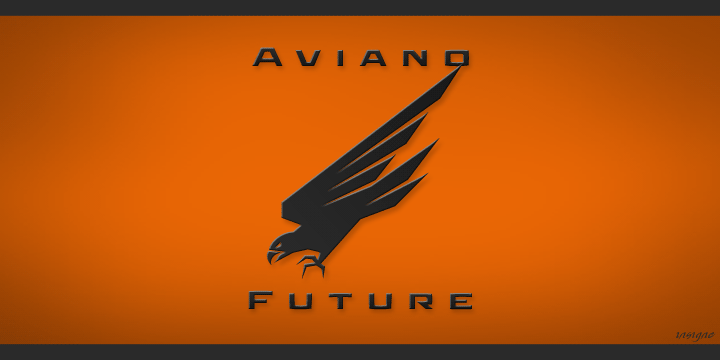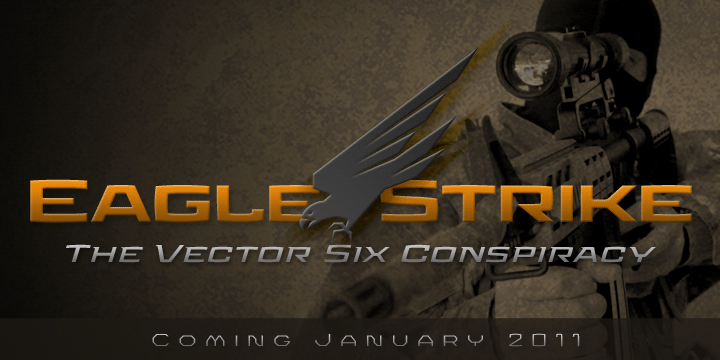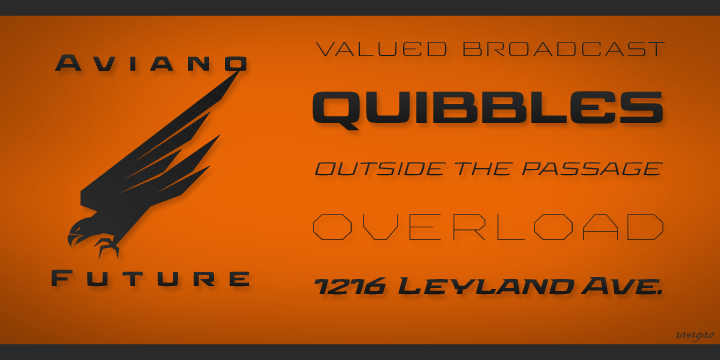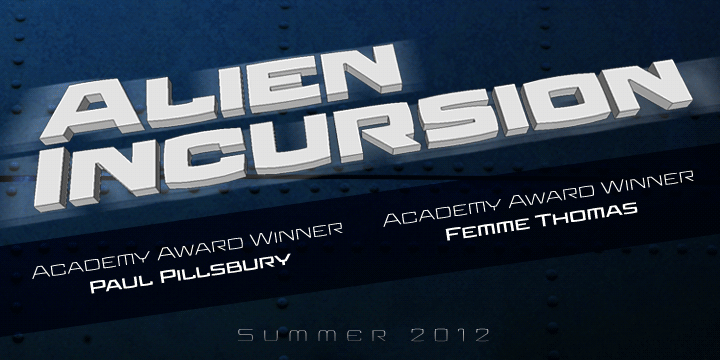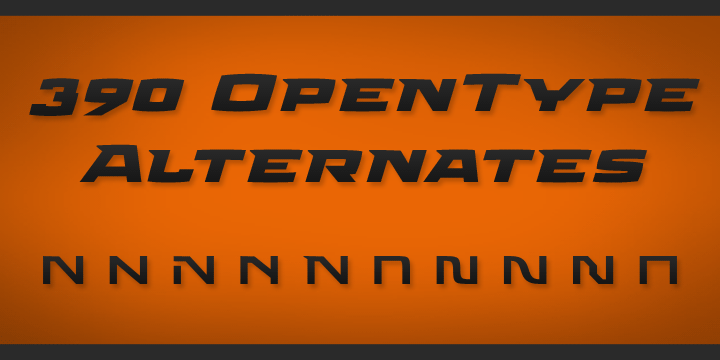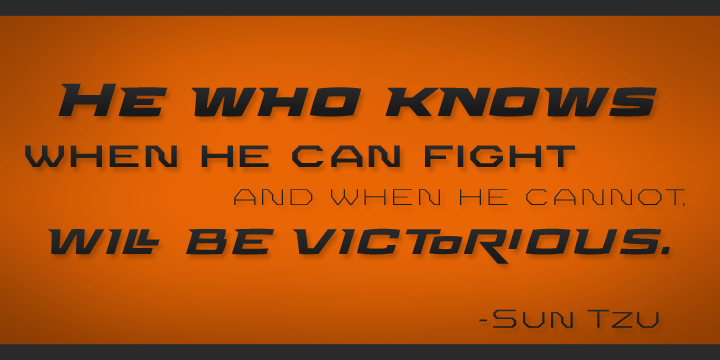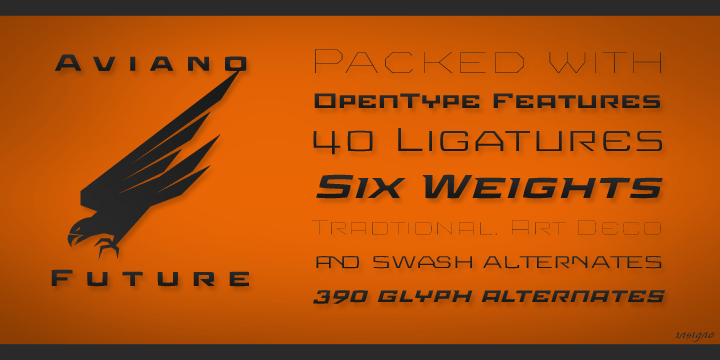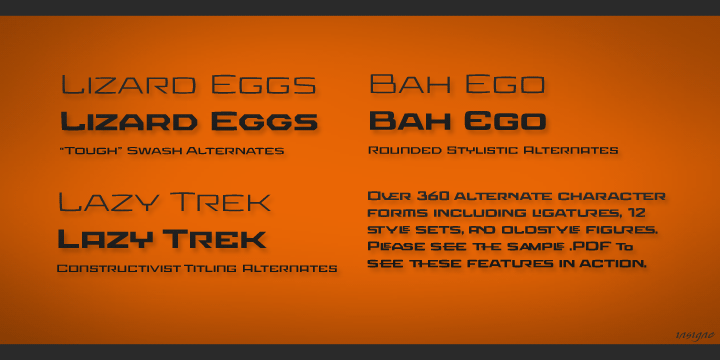
Aviano Future
Buy NowThe Aviano series returns with a vigorous and futuristic sans serif. Aviano Future's powerful squared forms lend intensity and authority to your designs. Aviano Future's extended forms give the face strength and muscle. Aviano Future is a versatile new addition to the Aviano titling series.
Aviano Future comes in six different weights with ?fast? Fasts and is packed with OpenType features. Want to use more traditional rounded forms? Need swash forms? Art Deco alternates? Aviano Future includes 390 alternate characters. Eleven style sets are available, two sets of art deco inspired alternates, small forms, tough swash, constructivist titling and traditional stylistic alternates. Aviano Future also includes 40 discretionary ligatures for artistic typographic compositions. Please see the informative .pdf brochure to see these features in action.
OpenType capable applications such as Quark or the Adobe suite can take full advantage of the automatically replacing ligatures and alternates. This family also includes the glyphs to support a wide range of languages. Aviano Future is a great choice for a professional designer that wants to achieve a technological, futuristic or epic look.
Be sure to check out the rest of the Aviano series which can be used as complementary faces, including Aviano, Aviano Serif, Aviano Sans, Aviano Didone, Aviano Flare and Aviano Slab.